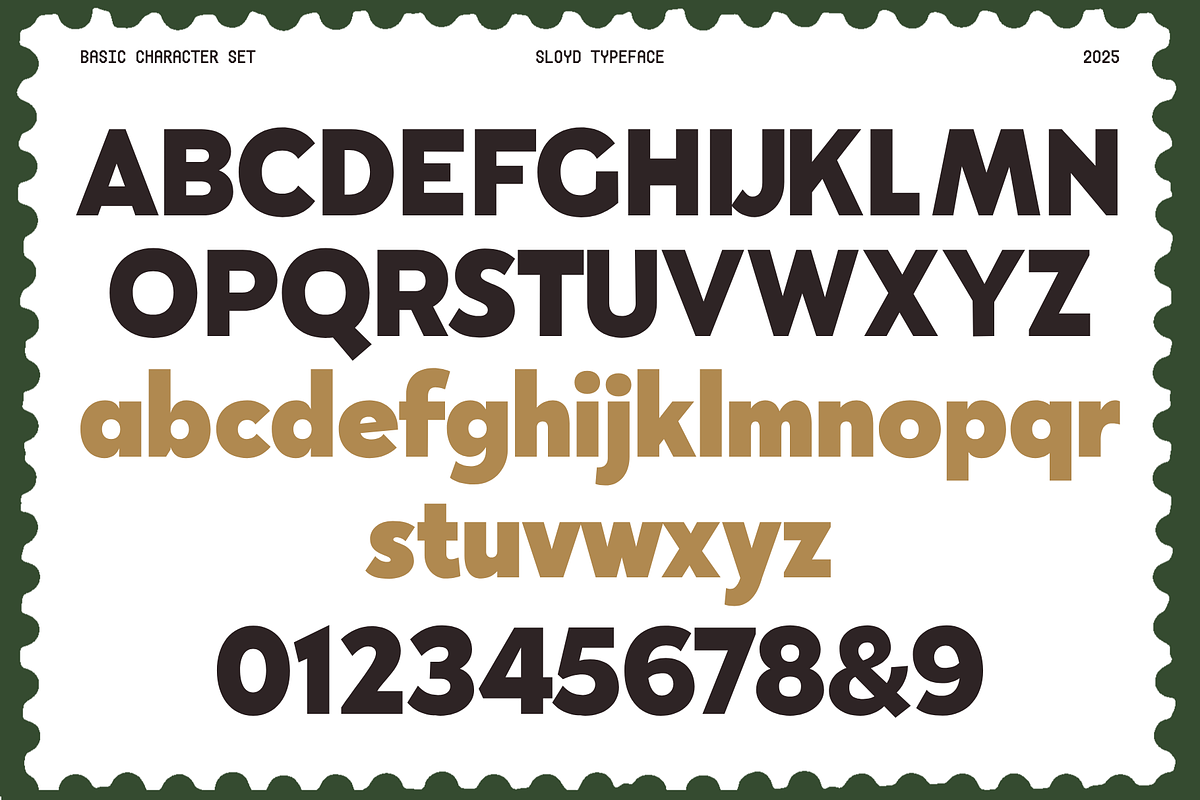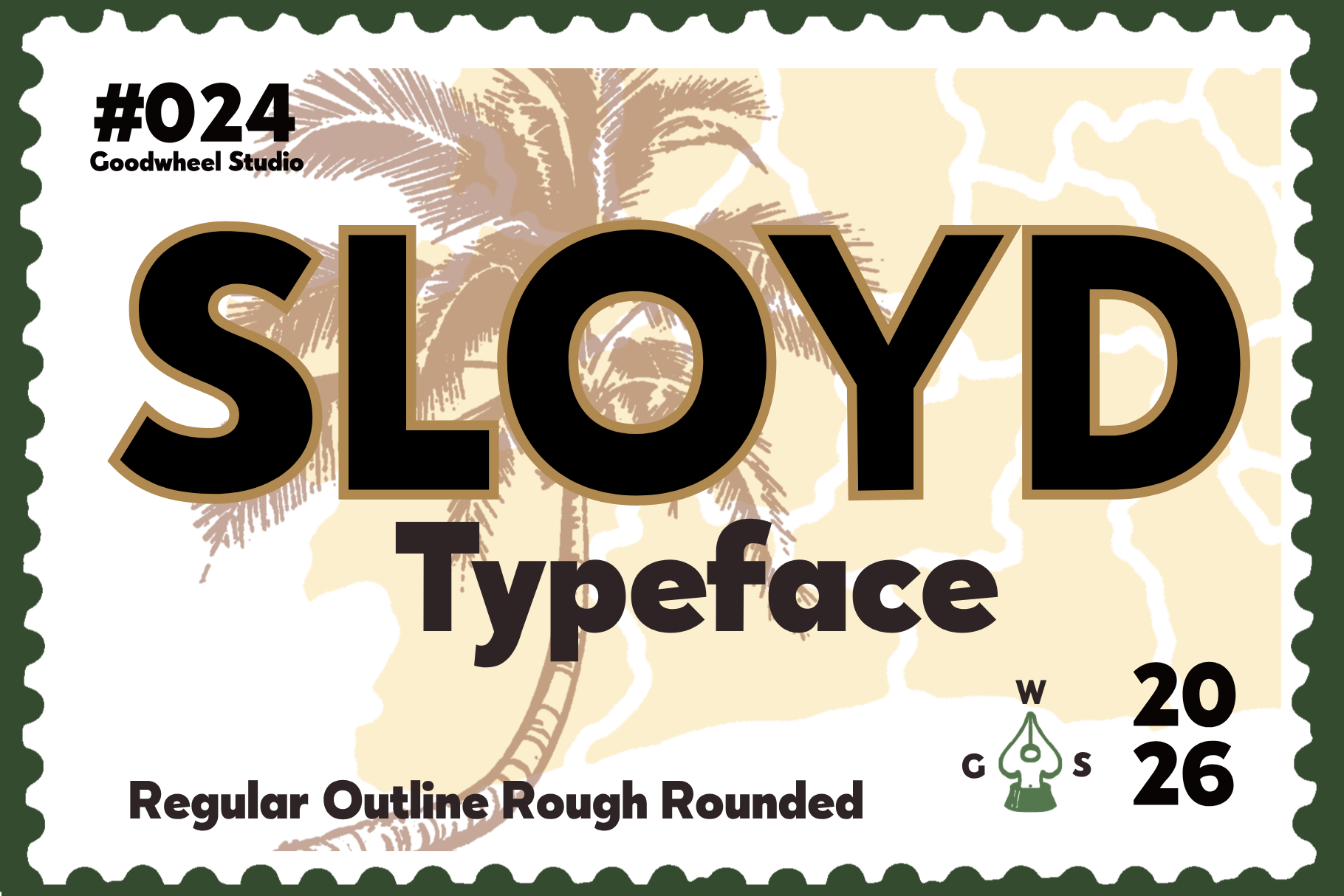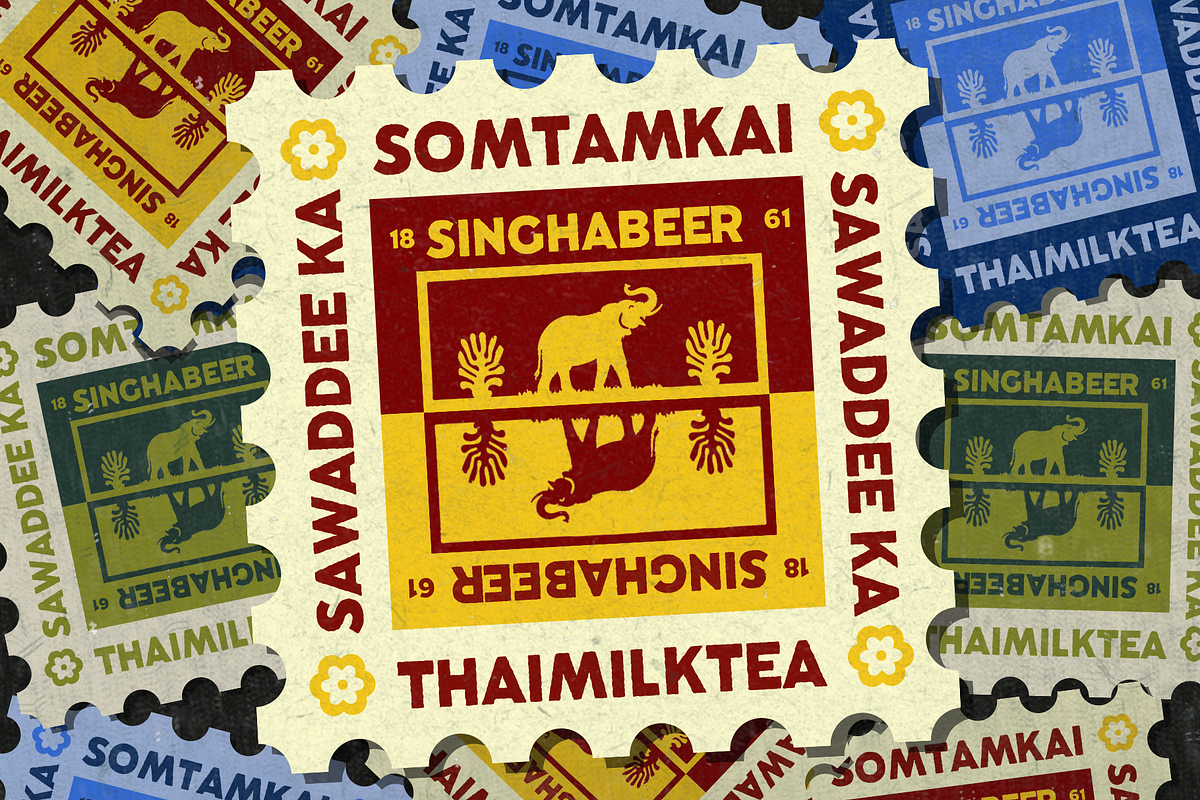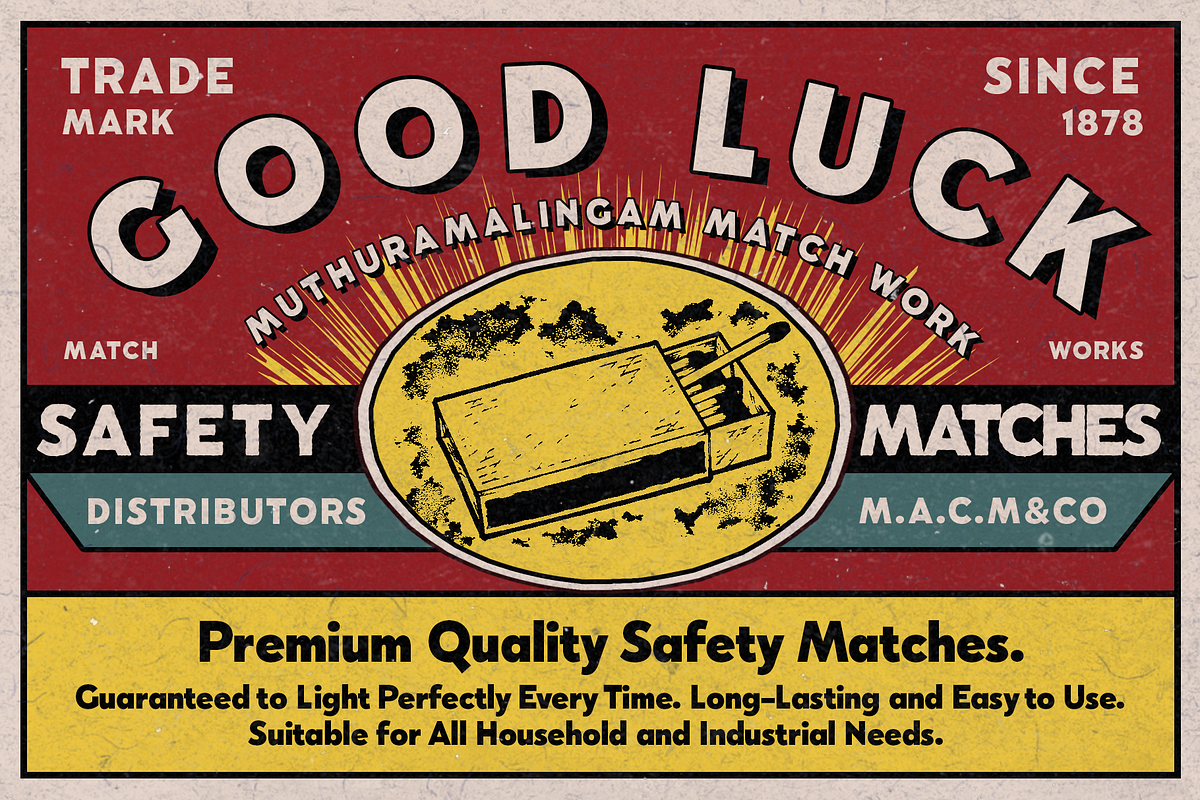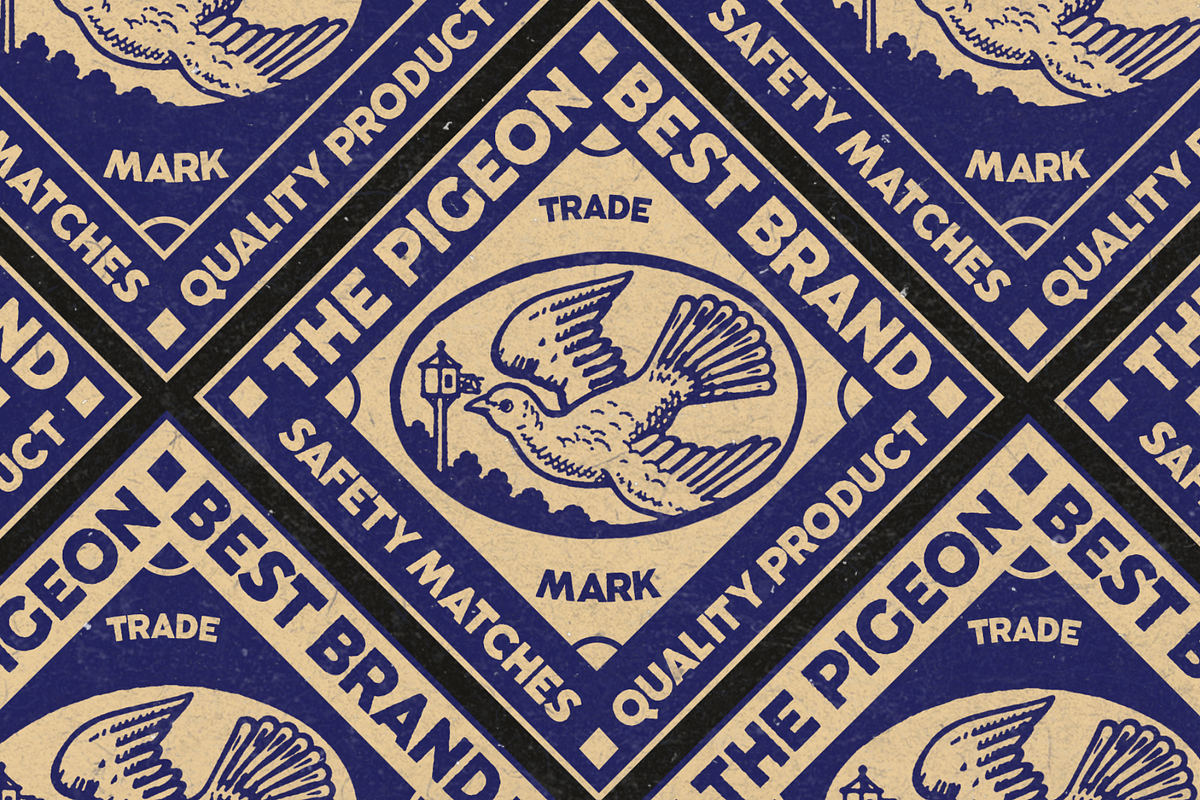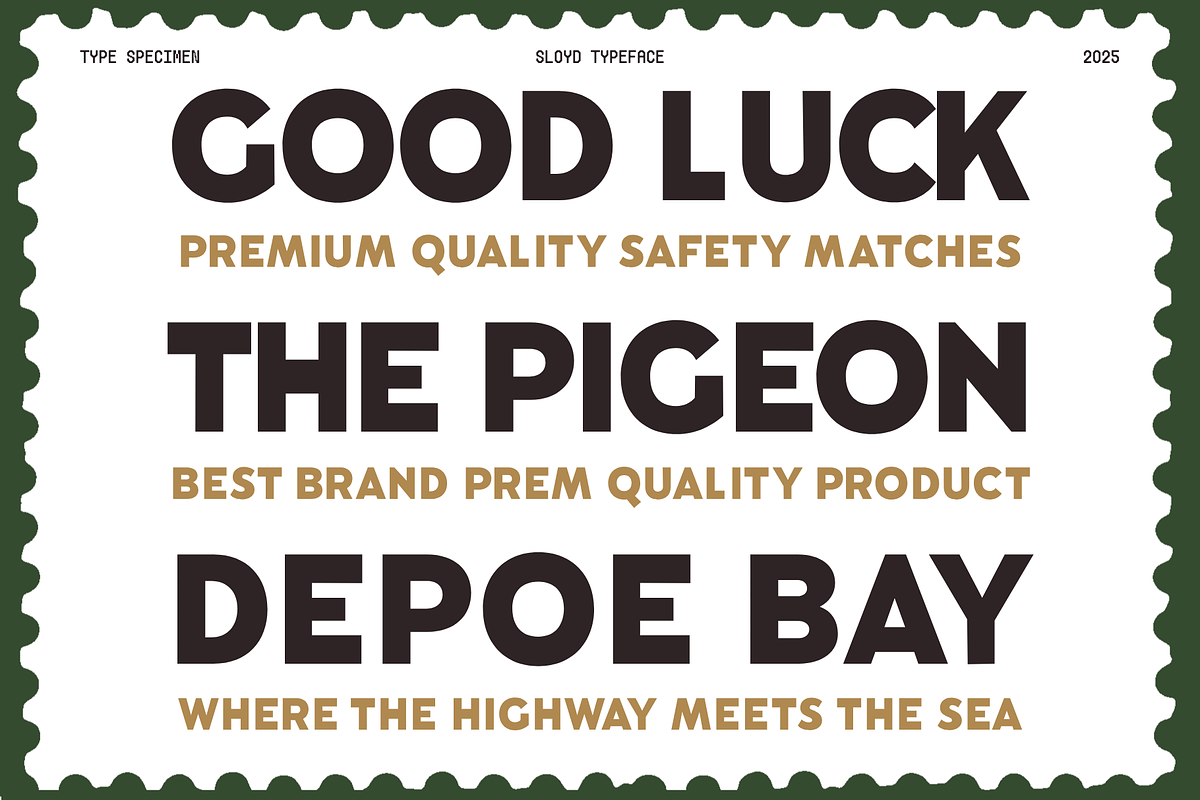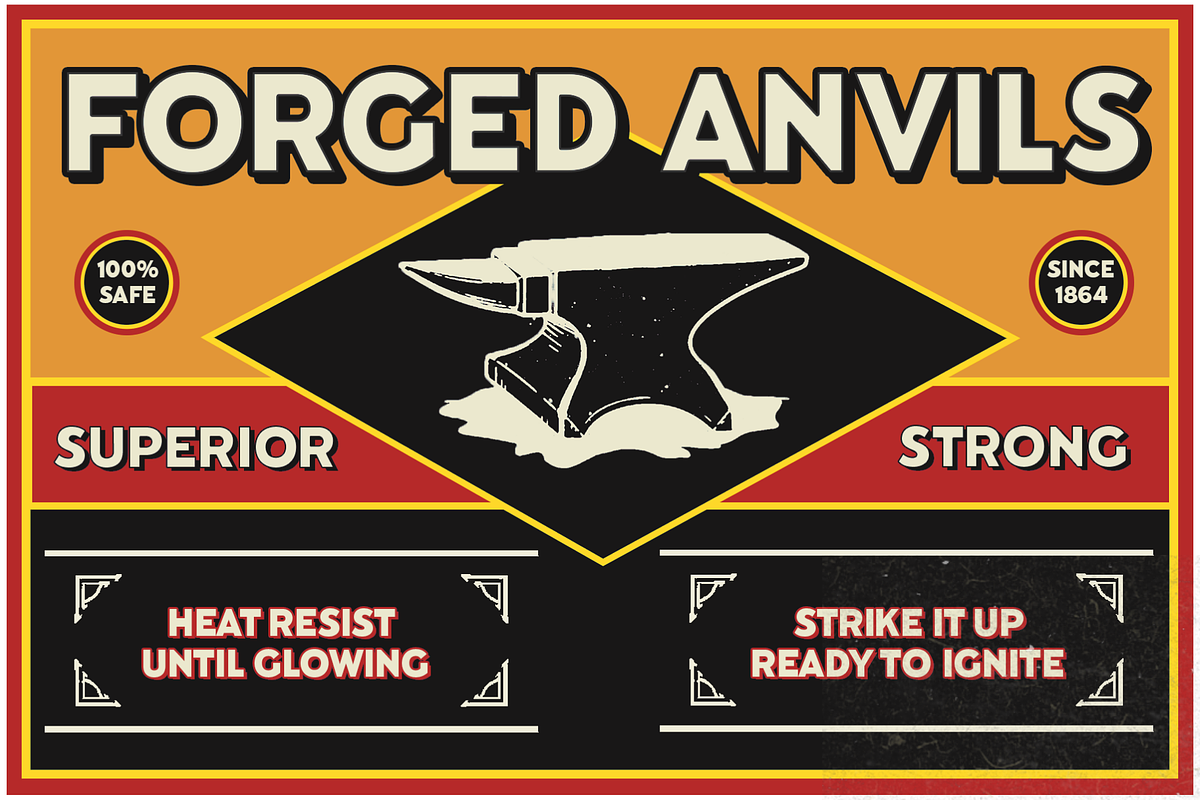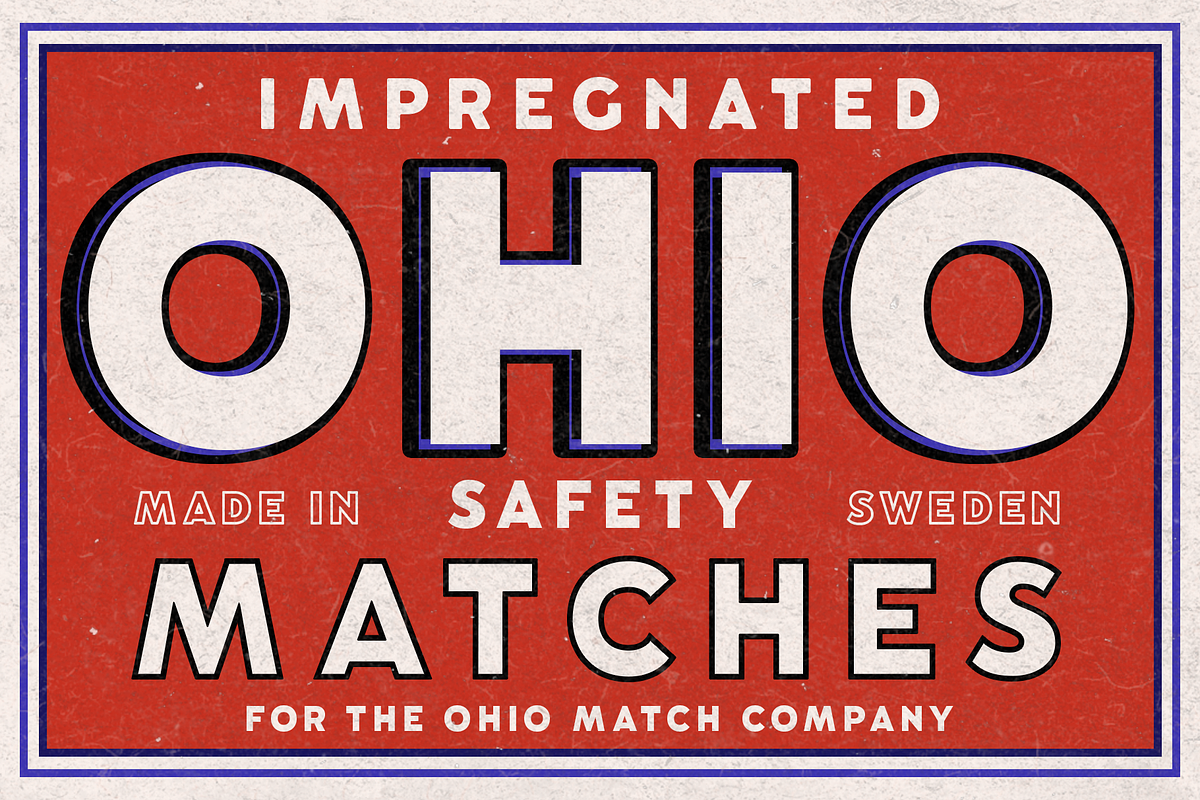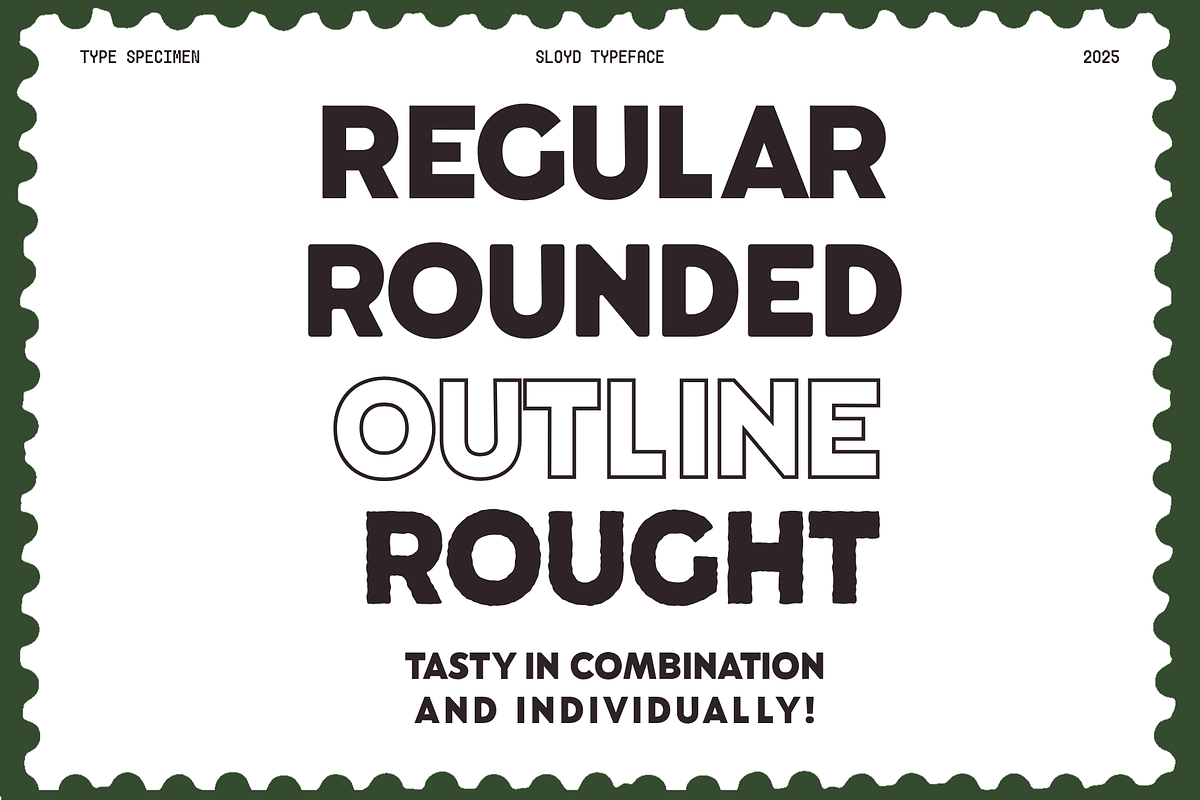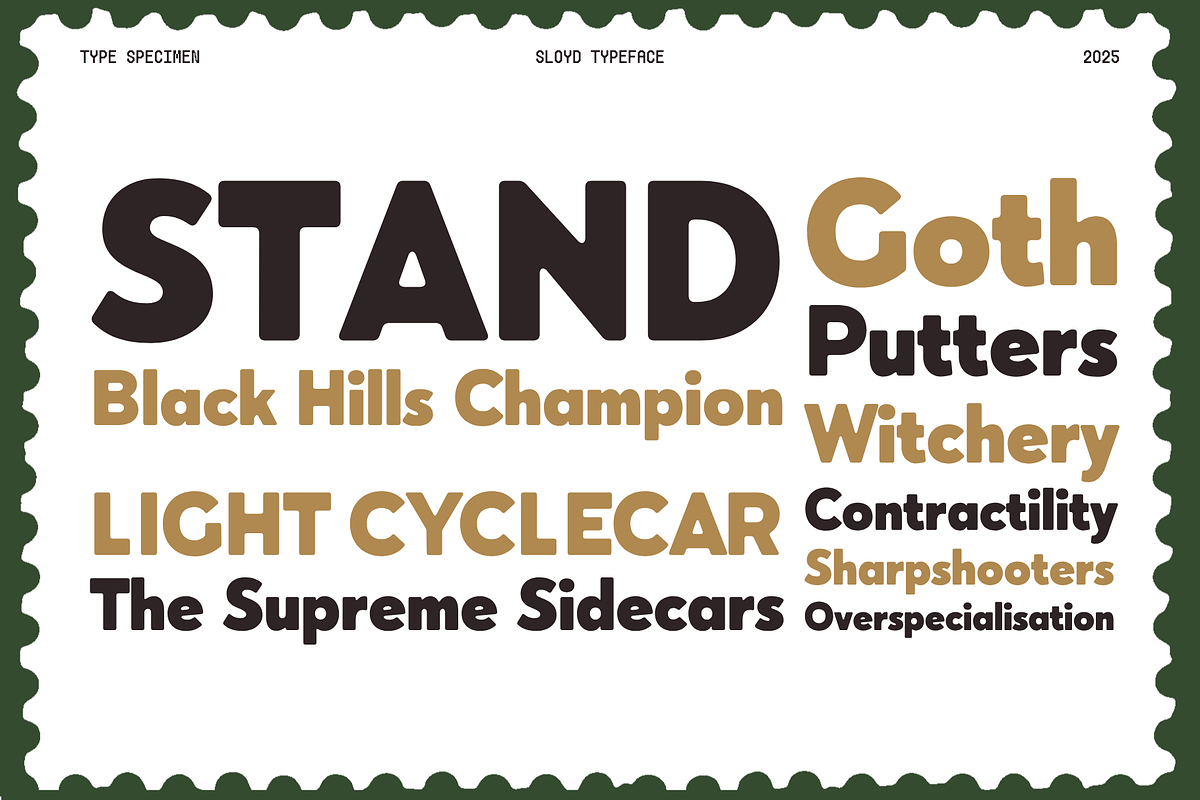
Sloyd | Handwritten Typeface
Sloyd is a bold, playful display typeface designed to bring strong personality and modern character to your creative projects. Featuring chunky letterforms, distinctive shapes, and a confident visual presence, Sloyd is perfect for branding, posters, headlines, packaging, editorial designs, social media graphics, logos, and eye-catching promotional artwork. Its expressive style combines geometric structure with a fun, contemporary feel, making it versatile for both modern and retro-inspired aesthetics. Sloyd includes uppercase and lowercase characters, numbers, and essential symbols, giving designers the flexibility to create striking typographic compositions. Make your message stand out with Sloyd for bold, memorable visual communication.